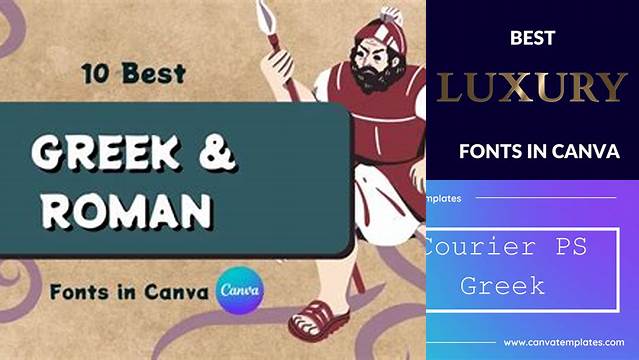
Best Greek Fonts In Canva: A Designer's Guide
Choosing the right font can make or break your design, especially when youâre working with different languages and alphabets. If you're diving into Greek typography in Canva, you're in the right place! This guide will walk you through everything you need to know about selecting the best Greek fonts in Canva, from classic styles to modern twists. Let's explore the wonderful world of Greek fonts and how to use them effectively in your designs. Whether youâre creating posters, social media graphics, or presentations, mastering Greek fonts in Canva is key to making your work stand out. So, buckle up, design enthusiasts, and letâs get started!
1. Understanding the Basics of Greek Typography in Canva
Before we jump into specific fonts, let's get a grip on the fundamentals of Greek typography within Canva. Guys, it's not just about picking a font that looks cool; it's about understanding how the Greek alphabet works and how different font styles can impact your message. The Greek alphabet has its own unique set of characters, accents, and ligatures, which means not every font will support it perfectly. When selecting Greek fonts in Canva, ensure they offer full character support to avoid missing glyphs or weird substitutions. Pay attention to the fontâs weight and style, ensuring it aligns with your designâs overall tone. Remember, a font that works well for a bold heading might not be suitable for body text. Experiment with different sizes and spacing to achieve optimal readability and visual appeal. Understanding these basics will set you up for success in creating stunning designs that honor the beauty and complexity of the Greek language.
2. Top Classic Greek Fonts Available in Canva
Classic fonts bring a touch of timeless elegance to your designs. When it comes to Greek fonts in Canva, there are several classic options that stand out. These fonts often have roots in traditional Greek calligraphy and typography, making them ideal for projects that require a sense of history and sophistication. Think of fonts like Times New Roman, Arial, and Garamond â these are reliable choices that support Greek characters beautifully. However, Canva offers many more specific classic fonts that evoke a Greek aesthetic, such as those resembling ancient inscriptions or handwritten scripts. These fonts often feature serifs and elegant curves, lending a formal and polished look to your text. Using classic Greek fonts can elevate your designs, giving them a refined and cultured feel. Whether youâre working on invitations, academic materials, or branding for a sophisticated business, these fonts will help you convey professionalism and style. So, explore Canvaâs classic font library and discover the timeless beauty of Greek typography.
3. Modern and Contemporary Greek Fonts in Canva
If youâre aiming for a sleek and up-to-date look, modern Greek fonts in Canva are your best bet. These fonts often feature clean lines, sans-serif styles, and a minimalist aesthetic that perfectly complements contemporary designs. Modern Greek fonts in Canva are incredibly versatile, fitting seamlessly into various projects, from website headers to social media graphics. When selecting modern fonts, consider how they reflect your brandâs personality. A bold, geometric font might work well for a tech startup, while a lighter, more elegant sans-serif could be ideal for a fashion brand. Canva offers a plethora of options, each with its unique character and charm. Experiment with different weights and styles to find the perfect balance between readability and visual impact. Remember, modern Greek fonts can bring a fresh and stylish vibe to your designs, making them stand out in today's visually driven world. So, go ahead, explore the contemporary side of Greek typography in Canva!
4. Best Canva Fonts for Greek Headings
Headings are the first thing people notice, so choosing the right font is crucial. For Greek headings in Canva, you need fonts that are bold, clear, and attention-grabbing. Think about using strong, impactful fonts that can convey your message effectively. Sans-serif fonts often work well for headings because they are easy to read from a distance. Greek fonts with a heavier weight can also make your headings stand out. Canva has a variety of options, from modern to classic styles, ensuring youâll find something that fits your design aesthetic. Experiment with different sizes and letter spacing to achieve the perfect look. A well-chosen heading font can draw the reader in and make them want to learn more. Remember, the best Greek fonts for headings are those that combine readability with visual appeal, making your message clear and compelling. So, choose wisely and make your headings pop!
5. Ideal Greek Fonts for Body Text in Canva
Readability is key when it comes to body text. For Greek body text in Canva, you need fonts that are easy on the eyes and allow for comfortable reading over longer passages. Serif fonts are often a great choice for body text because their small strokes help guide the eye across the page. However, some sans-serif fonts can also work well, especially if they have a generous letter spacing and a clear, simple design. When selecting Greek fonts for body text, consider the overall tone of your design. A more formal project might benefit from a classic serif font, while a modern design could use a clean sans-serif. Canva offers a wide range of options, so take your time to explore and experiment. The goal is to choose Greek fonts that make your text accessible and engaging, ensuring your message is communicated effectively. So, focus on readability and let your body text shine!
6. Pairing Greek Fonts with Latin Fonts in Canva
Pairing fonts can be an art, especially when working with different alphabets like Greek and Latin. In Canva, combining Greek fonts with Latin fonts effectively can elevate your design and create a harmonious visual experience. The key is to find fonts that complement each other in style, weight, and overall feel. For example, a modern Greek sans-serif font might pair well with a clean Latin sans-serif like Helvetica or Open Sans. Conversely, a classic Greek serif font could be beautifully matched with a Latin serif font such as Times New Roman or Garamond. When pairing fonts, consider the hierarchy of your text. Use a bolder font for headings and a more readable font for body text. Experiment with different combinations in Canva to see what works best for your project. Remember, the goal is to create a cohesive design where both the Greek fonts and Latin fonts work together seamlessly, enhancing the overall aesthetic and readability. So, get creative and find the perfect font pairing for your next Canva masterpiece!
7. Free Greek Font Options in Canva
One of the best things about Canva is its extensive library of free fonts, including options for Greek typography. If you're working on a budget, you'll be happy to know there are plenty of excellent Greek fonts available without spending a dime. These free fonts can be just as stylish and effective as their premium counterparts, allowing you to create stunning designs without breaking the bank. Canvaâs free font collection includes a variety of styles, from classic serifs to modern sans-serifs, ensuring you can find something that suits your projectâs needs. When exploring the free options, pay attention to character support and readability. Make sure the Greek fonts you choose include all the necessary glyphs and accents, and that they are easy to read in both headings and body text. Don't hesitate to experiment with different free fonts to see what works best for your design. With Canvaâs vast selection, youâre sure to discover some hidden gems that will make your Greek typography shine. So, dive in and explore the world of free Greek fonts in Canva!
8. Premium Greek Fonts Worth Paying For in Canva
Sometimes, investing in premium fonts can take your designs to the next level. While Canva offers a great selection of free Greek fonts, the premium options often provide a wider range of styles, higher quality designs, and more extensive character support. If you're working on a professional project or want to create a unique and sophisticated look, consider exploring Canvaâs premium font library. These fonts often include intricate details, ligatures, and stylistic alternates that can add a touch of elegance and personality to your text. Premium Greek fonts can also be a worthwhile investment if you plan to use them repeatedly across different projects, ensuring a consistent and polished brand identity. When choosing premium fonts, think about the specific needs of your design. Are you looking for a font that stands out in headings, or one that offers excellent readability in body text? Canvaâs premium options provide a diverse range of choices, allowing you to find the perfect fit for your creative vision. So, if youâre ready to elevate your typography, explore the world of premium Greek fonts in Canva and discover the difference they can make!
9. How to Add Custom Greek Fonts to Canva
Canva offers a fantastic selection of fonts, but sometimes you might need something unique that's not already available in their library. The good news is that Canva allows you to upload your own custom Greek fonts, giving you even more creative flexibility. This feature is especially useful if you have a specific brand font or want to use a unique Greek typeface that you've found elsewhere. To add custom fonts, you'll need a Canva Pro account. Once you have that, the process is straightforward: simply go to your brand kit settings and upload your font files. Make sure your Greek fonts are in a supported format (like OTF or TTF) and that you have the necessary licenses to use them. Once uploaded, your fonts will be available for use in all your Canva designs. This feature opens up a world of possibilities, allowing you to create truly unique and personalized projects. So, if youâre looking to take your Greek typography in Canva to the next level, uploading custom fonts is the way to go!
10. Using Greek Fonts for Logos in Canva
The font you choose for your logo can significantly impact your brand identity. When designing logos with Greek text in Canva, selecting the right Greek fonts is crucial. Your logo font should not only be visually appealing but also accurately represent your brandâs personality and values. Think about the overall message you want to convey. A classic serif font might be ideal for a traditional or sophisticated brand, while a modern sans-serif font could be a better fit for a contemporary or tech-focused company. Canva offers a wide range of Greek fonts suitable for logo design, from bold and impactful options to elegant and refined styles. When experimenting with fonts, consider factors like legibility, scalability, and how well the font works in different sizes and contexts. Your logo needs to look just as good on a business card as it does on a website header. Don't be afraid to try different combinations and variations until you find the perfect font that captures the essence of your brand. A well-chosen Greek font can make your logo memorable and impactful, helping you stand out in a competitive market.
11. Creating Greek Text Graphics for Social Media in Canva
Social media is a visual medium, so your graphics need to grab attention and communicate effectively. When creating Greek text graphics in Canva, choosing the right Greek fonts is essential. Your font should not only be aesthetically pleasing but also highly readable, especially on smaller screens. Think about the tone and style of your social media content. A playful brand might opt for a more whimsical or casual font, while a professional brand might prefer a clean and modern typeface. Canva offers a variety of Greek fonts that are perfect for social media graphics, from bold and eye-catching options to elegant and understated styles. When designing your graphics, consider using font pairings to create visual interest. Combine a bold heading font with a more readable body text font to make your message clear and impactful. Don't forget to optimize your text for mobile viewing, ensuring it's easy to read on smartphones and tablets. By carefully selecting your Greek fonts, you can create social media graphics that are both visually appealing and highly effective at conveying your message.
12. Designing Greek Invitations and Cards in Canva
Invitations and cards are a perfect opportunity to showcase your creativity and attention to detail. When designing Greek invitations and cards in Canva, selecting the right Greek fonts can add a touch of elegance and sophistication to your designs. Consider the occasion and the overall style you want to convey. For formal events like weddings or anniversaries, classic serif fonts can bring a sense of tradition and refinement. For more casual gatherings, modern sans-serif fonts or even handwritten-style fonts can add a personal and inviting touch. Canva offers a wide range of Greek fonts that are ideal for invitations and cards, allowing you to create designs that are both beautiful and memorable. When choosing fonts, think about readability and ensure your text is easy to read, even in smaller sizes. Experiment with font pairings to create visual interest and hierarchy. Combine a decorative font for headings with a more legible font for body text. Pay attention to spacing and alignment to ensure your text is well-balanced and visually appealing. By carefully selecting your Greek fonts, you can create invitations and cards that are truly special and reflective of the occasion.
13. Greek Font Styles for Print Materials in Canva
When designing print materials, typography plays a crucial role in the overall look and feel. For Greek print materials in Canva, choosing the right Greek fonts can ensure your designs are both visually appealing and easy to read. Consider the type of print material you're creating, whether it's a brochure, poster, or business card. Different materials call for different font styles. For example, a formal brochure might benefit from classic serif fonts, while a modern poster could use bold sans-serif fonts to grab attention. Canva offers a variety of Greek fonts suitable for print, allowing you to find the perfect fit for your project. When selecting fonts for print, readability is key. Ensure your text is clear and legible, even in smaller sizes. Pay attention to font weight and contrast to make your text stand out against the background. Experiment with font pairings to create visual interest and hierarchy. Use a bolder font for headings and a more readable font for body text. Remember, the goal is to create print materials that are both visually appealing and effective at communicating your message. By carefully selecting your Greek fonts, you can ensure your print designs make a lasting impression.
14. Greek Font Trends in Modern Design (Canva)
Keeping up with font trends can help your designs feel fresh and current. In modern design, several Greek fonts and typography styles are gaining popularity in Canva. Clean, geometric sans-serif fonts are a major trend, offering a minimalist and contemporary look. These fonts are perfect for logos, websites, and social media graphics. Bold and impactful display fonts are also in vogue, making a statement in headings and titles. Handwritten and script fonts add a personal and artistic touch, ideal for invitations and branding materials. When choosing Greek fonts in Canva, consider these trends and how they can enhance your designs. Experiment with different styles to find what resonates with your brand and message. Font pairings are also a key trend, combining different font styles to create visual interest and hierarchy. Mix a bold sans-serif with a classic serif, or pair a handwritten font with a clean sans-serif. Remember, trends are constantly evolving, so stay curious and explore new possibilities. By incorporating modern Greek font trends into your Canva designs, you can create visuals that are both stylish and effective.
15. The Psychology of Greek Fonts in Canva
Fonts have the power to evoke emotions and convey messages beyond the words themselves. In Canva, the Greek fonts you choose can significantly influence how your audience perceives your design. Different font styles have different psychological effects. Serif fonts often convey a sense of tradition, authority, and elegance, making them suitable for formal or professional contexts. Sans-serif fonts, on the other hand, tend to feel modern, clean, and approachable, ideal for contemporary brands and designs. Script fonts can evoke feelings of creativity, personalization, and artistry, perfect for invitations or artistic projects. When selecting Greek fonts, consider the emotions and associations you want to create. Think about your target audience and the message you want to communicate. A well-chosen font can enhance your design and strengthen your brand identity. Experiment with different font styles to see how they impact the overall feel of your project. Pay attention to font weight, spacing, and size to achieve the desired effect. By understanding the psychology of Greek fonts, you can make informed choices that resonate with your audience and help your designs succeed.
16. Greek Fonts for Educational Materials in Canva
When designing educational materials in Canva, clarity and readability are paramount. For Greek fonts, this means choosing typefaces that are easy to read and understand, especially for students who may be learning the language. Simplicity is key; avoid overly decorative or stylized fonts that can distract from the content. Serif fonts, with their classic and familiar appearance, often work well for body text in educational materials. Sans-serif fonts can be a good choice for headings and titles, providing a clear and modern look. Consider the age and reading level of your audience when selecting fonts. Younger students may benefit from larger font sizes and simpler letterforms, while older students can handle more sophisticated typography. Canva offers a range of Greek fonts suitable for educational use, from traditional options to contemporary styles. Experiment with different font pairings to create visual hierarchy and make your materials engaging. Remember, the goal is to present information in a clear and accessible way, helping students learn and understand the content effectively. By carefully selecting your Greek fonts, you can enhance the educational value of your materials and create a positive learning experience.
17. Greek Fonts for Business Presentations in Canva
In business presentations, your font choice can make a significant impact on how your message is received. For Greek fonts in Canva, it's important to select typefaces that project professionalism, clarity, and credibility. Your font should be easy to read from a distance and convey the tone you want to set for your presentation. Sans-serif fonts are often a popular choice for presentations, as they offer a clean and modern look that works well on screens. However, serif fonts can also be effective, especially for more formal or traditional presentations. Consider the overall design of your slides and choose Greek fonts that complement your visuals and content. Avoid using too many different fonts, as this can make your presentation look cluttered and unprofessional. Stick to a maximum of two or three fonts and use them consistently throughout your slides. Pay attention to font size and spacing to ensure your text is legible and well-balanced. Use bold or italics sparingly to emphasize key points. By carefully selecting your Greek fonts, you can create a presentation that is both visually appealing and effective at communicating your message.
18. How to Use Greek Characters in Non-Greek Fonts in Canva
Sometimes, you might want to incorporate a few Greek characters into a design without using a fully Greek font. In Canva, this can be achieved by using non-Greek fonts that include certain Greek letters or symbols. Many fonts, particularly those in the sans-serif family, include the basic Greek alphabet characters, even if they don't offer full support for the Greek language. This can be useful for creating logos, headings, or design elements that incorporate a subtle Greek touch. To use Greek characters in non-Greek fonts, you'll need to use character mapping tools or copy and paste the characters from a character map. Canva doesn't have a built-in character map, but you can use the character map application on your computer or online character map websites. Keep in mind that not all non-Greek fonts will include the same Greek characters, so you may need to experiment to find the right font for your needs. Also, be aware that using Greek characters in a font that doesn't fully support the Greek language may result in inconsistent spacing or rendering issues. If you need to use a lot of Greek text, it's best to stick to fonts specifically designed for the Greek alphabet. However, for occasional use, incorporating Greek characters into non-Greek fonts can be a creative way to add visual interest to your designs.
19. Using Greek Fonts to Create a Specific Mood in Canva
Typography is a powerful tool for setting the mood and tone of your designs. In Canva, the Greek fonts you choose can significantly impact the emotions and associations your designs evoke. Different font styles convey different feelings. Classic serif fonts often create a sense of elegance, tradition, and authority, making them suitable for formal or sophisticated designs. Modern sans-serif fonts tend to feel clean, contemporary, and approachable, ideal for brands that want to project a fresh and modern image. Handwritten or script fonts can add a personal, artistic, and whimsical touch, perfect for invitations, cards, or creative projects. Bold and impactful display Greek fonts can convey confidence, energy, and excitement, making them a great choice for headings, posters, or social media graphics. When selecting fonts, consider the overall mood you want to create and choose typefaces that align with your vision. Think about your target audience and the message you want to communicate. Experiment with different font pairings to create visual interest and enhance the mood of your design. By understanding the emotional impact of Greek fonts, you can create visuals that resonate with your audience and achieve your desired effect.
20. The Importance of Readability in Greek Typography in Canva
Readability is a fundamental principle of good typography, and it's especially important when working with Greek text in Canva. No matter how beautiful a font may be, if it's not easy to read, it won't effectively communicate your message. When choosing Greek fonts, prioritize clarity and legibility. Avoid overly decorative or stylized fonts that can be difficult to decipher, especially in smaller sizes or longer passages of text. Serif fonts are often a good choice for body text, as their small strokes help guide the eye across the page. Sans-serif fonts can work well for headings and titles, but be sure to select a typeface that has clear and well-defined letterforms. Pay attention to font size, spacing, and contrast to ensure your text is easy on the eyes. Use sufficient space between letters, words, and lines to prevent overcrowding and improve readability. Choose colors that provide good contrast between the text and the background. Avoid using light colors on light backgrounds or dark colors on dark backgrounds. Experiment with different font pairings to create visual hierarchy and make your text more engaging. By focusing on readability, you can ensure your Greek typography in Canva is both beautiful and effective at conveying your message.
21. Mastering Kerning and Tracking with Greek Fonts in Canva
Kerning and tracking are essential typographic techniques that can significantly improve the appearance and readability of your Greek text in Canva. Kerning refers to the adjustment of space between individual letters, while tracking involves adjusting the overall spacing between all letters in a word or line. Mastering these techniques can help you create more balanced and visually appealing typography. When working with Greek fonts, kerning is particularly important because some Greek letter combinations can appear too close together or too far apart if the default spacing is not adjusted. Canva has kerning options, usually found in the advanced text settings, allowing to fine-tune the spacing between letters. Tracking can be used to adjust the overall density of your text. Increasing the tracking can make your text feel more airy and open, while decreasing the tracking can make it feel more compact and dense. Experiment with kerning and tracking to see how they impact the look and feel of your Greek fonts. Pay attention to areas where letters appear crowded or unevenly spaced, and make adjustments as needed. By mastering these techniques, you can create typography that is both visually pleasing and easy to read.
22. Using Ligatures in Greek Fonts for Elegant Designs in Canva
Ligatures are special characters that combine two or more letters into a single glyph. They are often used in typography to improve the appearance of certain letter combinations, especially in elegant or formal designs. Many Greek fonts include ligatures, which can add a touch of sophistication and visual interest to your text in Canva. Ligatures can be particularly useful for addressing spacing issues between certain letter combinations, such as âÏÏâ or âÏÎč,â which can sometimes appear awkward if not properly kerned. When using ligatures, itâs important to use them judiciously. Overusing ligatures can make your text look cluttered and difficult to read. Use them sparingly, primarily in headings, titles, or other display text where you want to create a more refined look. Canva typically handles ligatures automatically if they are included in the font file, but you may need to enable them in the advanced text settings. Experiment with different Greek fonts that include ligatures and see how they can enhance your designs. By incorporating ligatures thoughtfully, you can add a touch of elegance and sophistication to your typography.
23. Combining Greek Fonts with Images Effectively in Canva
Typography and imagery work together to create visually compelling designs. In Canva, effectively combining Greek fonts with images can enhance your message and create a cohesive visual experience. When selecting Greek fonts for designs that include images, consider the style and tone of the images. Choose fonts that complement the imagery and support the overall mood you want to create. For example, if youâre using elegant or formal images, classic serif fonts may be a good choice. If your images are modern and minimalist, sans-serif fonts might be a better fit. Pay attention to the placement of your text and images. Ensure that your text is easy to read and doesn't compete with the images for attention. Use sufficient contrast between the text and the background to make your text stand out. Experiment with different font sizes, colors, and styles to see what works best with your images. Consider using text as a design element to create visual interest and balance in your designs. Overlap text and images, or use text to frame an image. By carefully combining Greek fonts with images, you can create designs that are both visually appealing and effective at communicating your message.
24. Using Greek Fonts in Canva for Branding Purposes
Typography plays a crucial role in branding, helping to create a visual identity that represents your brand's personality and values. When using Greek fonts in Canva for branding purposes, it's important to select typefaces that align with your brand's overall aesthetic and message. Your brand font should be memorable, legible, and versatile enough to be used across different platforms and materials. Consider your target audience and the emotions you want to evoke when choosing a font. A classic serif font may be suitable for a traditional or established brand, while a modern sans-serif font might be a better fit for a contemporary or innovative brand. Ensure that the Greek fonts you choose support all the necessary characters and accents for the Greek language. Consistency is key when it comes to branding, so use your selected Greek fonts consistently across all your marketing materials, including your logo, website, social media graphics, and print collateral. Create a brand style guide that outlines your font choices, sizes, and colors to ensure consistency across all your designs. By using Greek fonts strategically for branding, you can create a strong and recognizable visual identity that resonates with your audience.
25. Tips for Choosing the Right Greek Font Size in Canva
Font size is a crucial element of typography that can significantly impact the readability and visual appeal of your designs. In Canva, choosing the right Greek font size is essential for ensuring your text is both legible and visually balanced within your design. The ideal font size depends on several factors, including the font style, the amount of text, the intended viewing distance, and the overall design context. For body text, choose a font size that is comfortable to read over longer passages of text. A good starting point is typically between 10 and 12 points for print materials and 16 to 18 pixels for digital screens. Headings and titles should be larger than body text to create visual hierarchy and draw attention. Experiment with different font sizes to see what works best for your design. Consider the font's x-height, which is the height of the lowercase letters. Fonts with larger x-heights tend to appear larger than fonts with smaller x-heights, even at the same point size. Pay attention to the spacing between lines of text. Sufficient line spacing, also known as leading, improves readability and prevents the text from feeling crowded. By carefully selecting your Greek font size, you can ensure your text is both legible and visually appealing.
26. Best Practices for Using Greek Fonts on Websites (Canva)
Typography plays a crucial role in website design, impacting both the user experience and the overall aesthetic. When using Greek fonts on websites created with Canva or integrated with Canva designs, it's important to follow best practices to ensure readability, performance, and visual appeal. Choose web-safe fonts that are widely supported by different browsers and operating systems. This ensures that your text will display correctly for most users. Consider using font services like Google Fonts, which offers a wide range of free and open-source Greek fonts optimized for web use. Pay attention to font size and line height to ensure readability on different screen sizes and devices. Use responsive typography techniques to adjust font sizes dynamically based on the screen width. Optimize your font files for web performance by using compressed font formats like WOFF or WOFF2. Limit the number of font styles and weights used on your website to improve loading times. Test your Greek fonts on different browsers and devices to ensure they display correctly. By following these best practices, you can create websites with beautiful and functional Greek typography that enhances the user experience.
27. Greek Fonts and Copyright: What You Need to Know in Canva
When using Greek fonts in Canva, it's essential to understand copyright laws and licensing agreements to avoid potential legal issues. Fonts are considered software and are protected by copyright. This means that you typically cannot freely copy, distribute, or modify font files without permission from the copyright holder. Most fonts come with a license that specifies how they can be used. Some licenses are free and open-source, allowing you to use the font for personal and commercial purposes. Other licenses are commercial and require you to purchase a license for specific uses, such as embedding the font in a website or using it in a logo. Before using a Greek font in your designs, carefully review the font's license agreement. If you're unsure about the terms of the license, it's best to err on the side of caution and contact the font designer or foundry for clarification. Canva offers a variety of fonts with different licenses. Free Canva fonts typically have licenses that allow you to use them for most purposes, but it's still important to check the terms. If you're uploading custom fonts to Canva, make sure you have the necessary licenses to use them commercially. By understanding font copyright and licensing, you can use Greek fonts responsibly and legally in your Canva designs.
28. The Future of Greek Typography in Digital Design (Canva)
The field of digital typography is constantly evolving, with new technologies and trends shaping how we use Greek fonts in Canva and other design platforms. As screen resolutions improve and display technologies advance, we can expect to see more sophisticated and nuanced typography on digital devices. Variable fonts, which allow for dynamic adjustments of font weight, width, and other parameters, are becoming increasingly popular and offer exciting possibilities for creative typography. Artificial intelligence (AI) is also playing a growing role in typography, with AI-powered tools helping designers choose fonts, create font pairings, and optimize text for readability. The use of Greek fonts in web design is likely to become more widespread, with improved support for Greek characters and increased awareness of the importance of multilingual typography. We can also expect to see more experimentation with Greek letterforms in branding and logo design, as designers seek to create unique and memorable visual identities. As digital design continues to evolve, Greek typography will play an increasingly important role in shaping the visual landscape. By staying informed about the latest trends and technologies, designers can leverage the power of Greek fonts to create innovative and impactful designs.
29. Resources for Learning More About Greek Typography
If you're eager to deepen your understanding of Greek typography and enhance your design skills in Canva, there are numerous resources available to help you. Online typography courses and tutorials can provide valuable insights into the principles of typography, font selection, and layout design. Websites and blogs dedicated to typography often feature articles, interviews, and case studies that explore the latest trends and techniques in the field. Books on typography offer a comprehensive overview of the subject, covering everything from the history of typography to the practical aspects of font usage. Design communities and forums provide opportunities to connect with other designers, share your work, and receive feedback. Font foundries and type designers often offer resources and workshops on specific typefaces and typographic styles. By actively seeking out learning opportunities and engaging with the design community, you can expand your knowledge of Greek typography and elevate your skills in Canva. Some specific resources to explore include online courses on platforms like Coursera and Skillshare, typography blogs like I Love Typography and Typographica, and books like âThe Elements of Typographic Styleâ by Robert Bringhurst.
30. Common Mistakes to Avoid When Using Greek Fonts in Canva
Using Greek fonts effectively in Canva can greatly enhance your designs, but it's important to be aware of common mistakes that can undermine your efforts. One frequent error is choosing fonts that are difficult to read, especially for body text. Prioritize clarity and legibility over overly decorative or stylized typefaces. Another mistake is using too many different fonts in a single design. This can create a cluttered and unprofessional look. Stick to a maximum of two or three fonts and use them consistently throughout your design. Ignoring font licensing agreements is another common pitfall. Always review the license terms before using a font to ensure you're complying with copyright laws. Improper kerning and tracking can also detract from the appearance of your text. Pay attention to letter spacing and make adjustments as needed to create a balanced and visually appealing layout. Failing to consider cultural context is another mistake to avoid. Ensure that the Greek fonts you choose are appropriate for the message you're conveying and the target audience you're reaching. By being mindful of these common mistakes, you can use Greek fonts more effectively in your Canva designs and create visuals that are both beautiful and impactful.